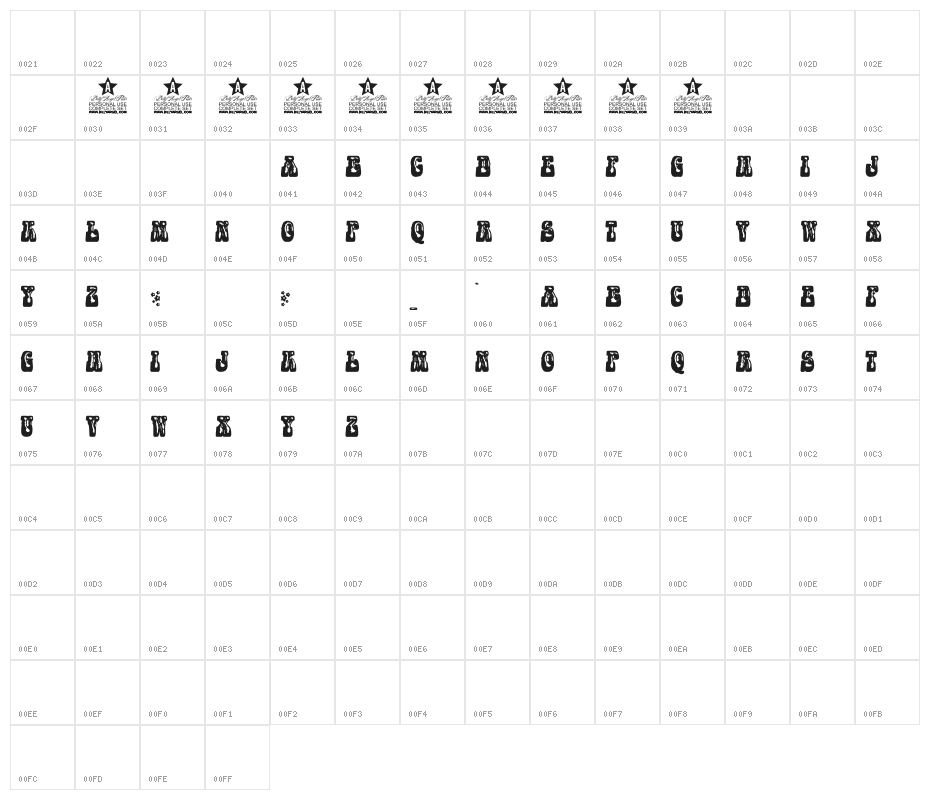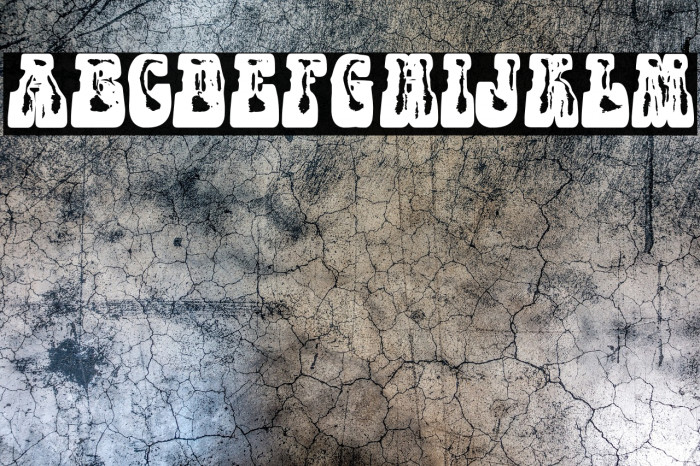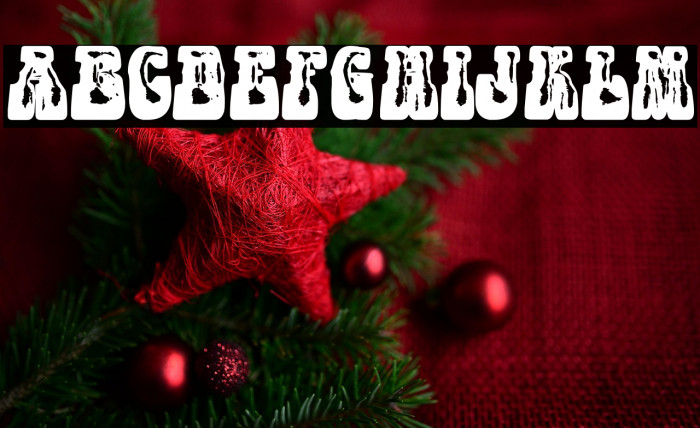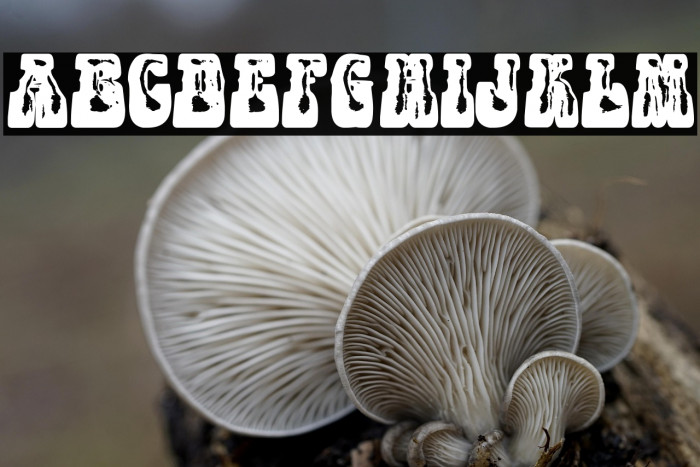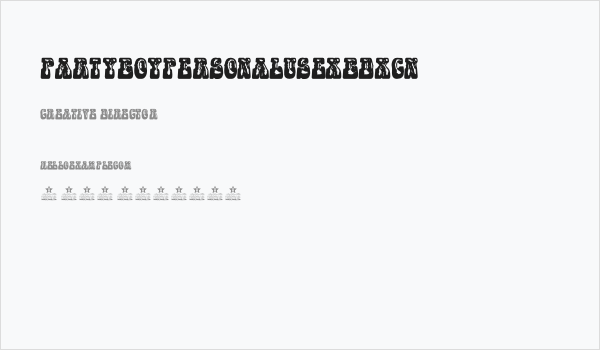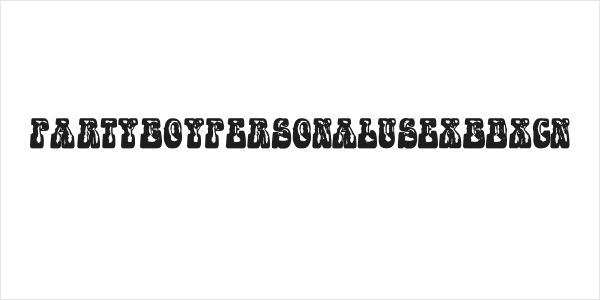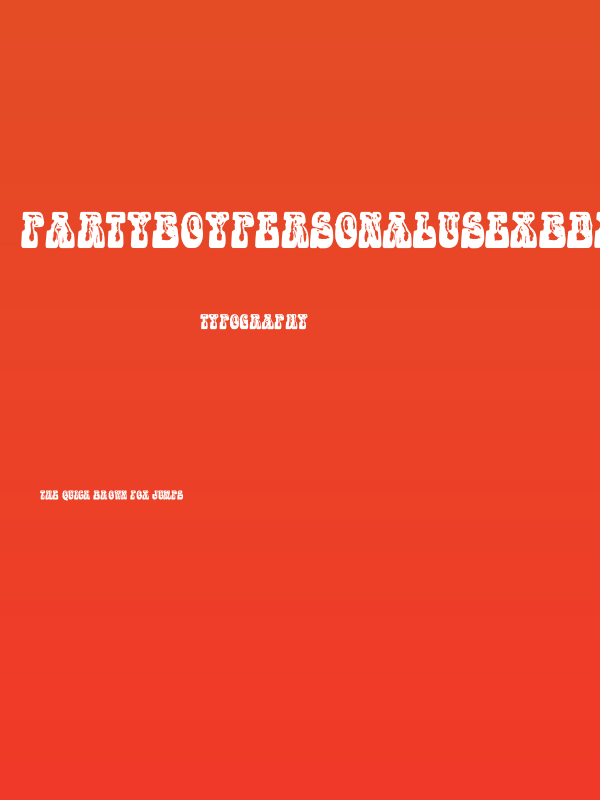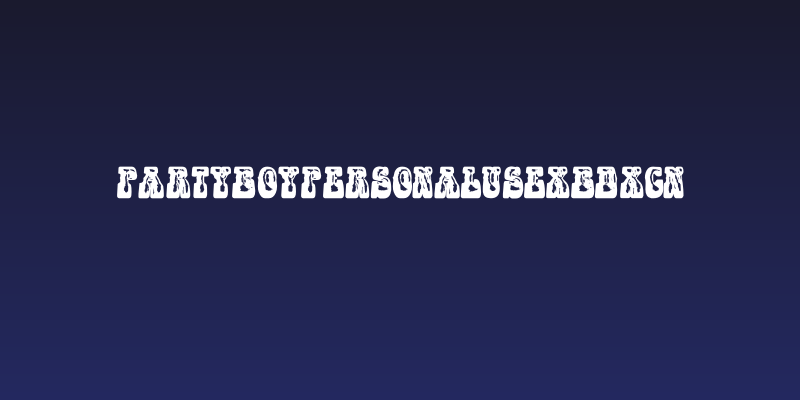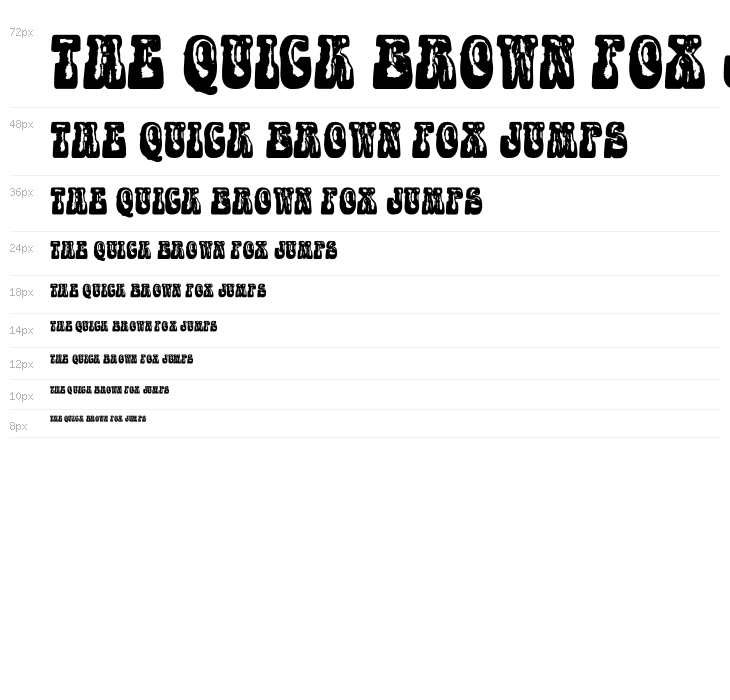
PARTYBOYPERSONALUSE-XBdXCn Font
PARTYBOYPERSONALUSE-XBdXCn Description
This font features a bold, decorative style with a playful and dynamic appearance. The characters are heavily stylized with irregular, dripping elements that give them a unique, almost liquid-like texture. The uppercase letters are prominent and eye-catching, making them ideal for attention-grabbing designs. The font's overall aesthetic is reminiscent of a party or festive theme, with a touch of whimsy and creativity. It is well-suited for projects that require a fun and informal look, such as event posters, party invitations, or themed merchandise. The font's distinctiveness lies in its ability to convey excitement and energy through its bold and unconventional design.